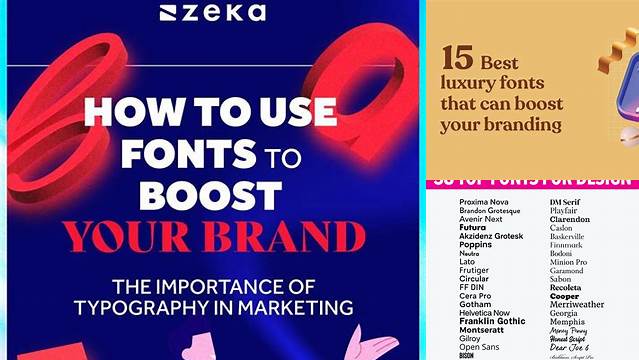
Top Fonts For Package Design: Boost Your Brand!
Choosing the right font for your package design is super important, guys. It’s not just about making it look pretty; it’s about grabbing attention, conveying your brand's vibe, and making sure people can actually read what’s on the label. Let's dive into the best fonts to make your product pop off the shelves!
1. Why Font Choice Matters in Package Design
Okay, so why sweat over fonts? Well, the font you pick is a key part of your brand's visual identity. Think about it: a playful, bubbly font screams something totally different than a sleek, modern sans-serif. Your font sets the tone before anyone even reads the words. It can convey trustworthiness, luxury, fun, or sophistication. Get it wrong, and you risk confusing or even alienating your target audience. Plus, a legible font is crucial. If people can't read what your product is or what it does, they're not going to buy it, no matter how cool the packaging looks. Considering all these aspects ensures that the package resonates effectively with potential buyers, reinforcing brand recognition and driving sales through clear communication. A well-thought-out font selection enhances the overall appeal of the product, making it more attractive and informative on the shelf, which ultimately contributes to a successful market presence and customer satisfaction.
2. Best Serif Fonts for Packaging
Serif fonts, with their little decorative strokes, often feel classic and reliable. For a touch of elegance, consider using a serif font. Think about brands that want to convey tradition, quality, or a sense of history. Times New Roman might be the default in Word, but there are way more interesting options out there! Garamond is a beautiful, timeless choice that works well for high-end products. Play around with different weights and sizes to find the perfect balance. Another great serif is Merriweather, which is super readable even at smaller sizes – perfect for those ingredient lists! Serifs enhance readability in print and evoke feelings of reliability and sophistication, making them ideal for products aiming to project a sense of heritage or premium quality. Using these fonts can significantly elevate the perceived value of the product, influencing consumer perception and purchase decisions through subtle yet powerful visual cues. The key is to select a serif that aligns with the brand's ethos and the product's positioning in the market, ensuring a cohesive and impactful design.
3. Top Sans-Serif Fonts for Modern Packaging
Sans-serif fonts are all about that clean, modern vibe. No frills, just straight lines and simplicity. If you're going for a contemporary look, sans-serif fonts are your best friend. Helvetica is the king of sans-serif, but it can feel a bit overused. Try alternatives like Open Sans, which is super versatile and readable, or Montserrat, which has a bit more personality. These fonts work well for tech products, minimalist designs, or anything that wants to feel fresh and up-to-date. The clarity and simplicity of sans-serif fonts make them ideal for conveying information quickly and efficiently, which is particularly useful for product details and instructions. By choosing a sans-serif that aligns with the product's branding, designers can create packaging that not only looks modern but also effectively communicates the product's core attributes to consumers. This approach helps in establishing a strong brand identity and fostering consumer trust and recognition.
4. Script and Handwritten Fonts in Package Design
Want to add a personal touch? Script or handwritten fonts can be amazing, but use them sparingly! These fonts are great for artisanal products, handmade goods, or anything that wants to feel a bit more human and approachable. Think about a fancy script on a bottle of organic olive oil or a playful handwritten font on a package of gourmet cookies. Just make sure they're still legible – no one wants to squint to figure out what they're buying. Brush Script is a classic (though slightly dated) choice, while newer options like Amatic SC offer a more modern feel. When used correctly, script and handwritten fonts can significantly enhance the emotional connection between the product and the consumer, creating a sense of authenticity and care. However, it's crucial to ensure that the chosen font complements the overall design and doesn't compromise readability. These fonts are best suited for accentuating specific elements of the packaging, such as the product name or a special message, rather than for extensive body text. Properly implemented, they can transform a simple package into a memorable and engaging experience.
5. Display Fonts for Eye-Catching Packaging
Display fonts are designed to grab attention, and they're perfect for making your packaging stand out. These fonts often have unique shapes and details that make them instantly noticeable. Use them for headlines, product names, or anything you want to emphasize. Just don't use them for body text – they're not designed for long blocks of reading. Examples include Bebas Neue, a tall and impactful sans-serif, or Lobster, a bold and retro script. When strategically placed, display fonts can act as powerful visual magnets, drawing consumers' eyes to the product and creating a lasting impression. The key is to select a font that not only stands out but also aligns with the brand's identity and the product's overall message. A well-chosen display font can communicate the product's personality, whether it's playful, sophisticated, or edgy, thereby enhancing its appeal and memorability on the shelf.
6. Font Pairing Tips for Package Design
Font pairing is an art, guys! You don't want your packaging to look like a font salad. A good rule of thumb is to pair a serif font with a sans-serif font. For example, use a Garamond header with an Open Sans body. Or, pair a bold display font with a simple, readable sans-serif. The goal is to create contrast and visual interest without overwhelming the viewer. Websites like FontPair can give you some great ideas. By combining fonts effectively, designers can create a hierarchy of information that guides the viewer's eye and enhances the overall readability and aesthetic appeal of the packaging. It's important to consider the mood and message of the product when selecting font pairings, ensuring that the chosen fonts work harmoniously to reinforce the brand's identity and attract the target audience. A well-executed font pairing not only improves the visual impact of the packaging but also contributes to a more engaging and memorable consumer experience.
7. Legibility: The Golden Rule of Package Fonts
No matter how cool a font looks, it's useless if people can't read it. Legibility should always be your top priority. Avoid overly decorative fonts for body text, and make sure there's enough contrast between the font color and the background. Test your font choices at different sizes to make sure they're still readable. If people have to squint or struggle to read your packaging, they're going to move on to the next product. To ensure optimal legibility, it's important to consider factors such as font size, spacing, and color contrast, especially when dealing with small text on packaging. Conducting readability tests with a diverse group of potential customers can provide valuable feedback on the effectiveness of the font choices. Ultimately, prioritizing legibility not only enhances the consumer experience but also reinforces the brand's commitment to clear and honest communication.
8. Considering Your Target Audience
Who are you trying to reach with your packaging? Think about your target audience when choosing a font. A font that appeals to kids is going to be very different from a font that appeals to sophisticated adults. Research your audience's preferences and choose fonts that resonate with them. If you are marketing toys for kids, bright colors and fun fonts is going to be more eye catching. Understanding your target audience's preferences and expectations is crucial for selecting fonts that resonate with them and effectively communicate the product's value proposition. By considering factors such as age, gender, cultural background, and lifestyle, designers can create packaging that not only attracts attention but also fosters a sense of connection and loyalty with consumers. A well-targeted font choice can significantly enhance the overall effectiveness of the packaging, increasing the likelihood of purchase and reinforcing the brand's identity.
9. The Psychology of Fonts in Branding
Fonts aren't just letters; they evoke emotions and associations. Understanding the psychology of fonts can help you choose the right font for your brand. Serif fonts often feel traditional and trustworthy, while sans-serif fonts feel modern and clean. Script fonts can feel elegant or playful, depending on the style. Think about the message you want to convey and choose a font that reinforces that message. The impact of font selection extends beyond aesthetics, playing a critical role in shaping brand perception and influencing consumer behavior. By carefully considering the psychological associations of different font styles, brands can strategically leverage typography to convey desired attributes, such as trustworthiness, innovation, or luxury. A well-chosen font can serve as a powerful tool for differentiating a brand from its competitors and creating a lasting impression in the minds of consumers.
10. Font Licensing and Usage Rights
Before you use a font in your packaging, make sure you have the proper license. Many fonts are free for personal use but require a commercial license for business purposes. Using a font without a license can lead to legal trouble, so it's always best to check the terms of use. Websites like MyFonts and Fontspring offer a wide variety of fonts with clear licensing information. Properly addressing font licensing and usage rights is crucial for ensuring compliance with copyright laws and avoiding potential legal issues. Designers and businesses should carefully review the terms of use associated with each font before incorporating it into their packaging design, paying attention to restrictions on commercial use, modification, and distribution. By adhering to font licensing agreements, brands can protect themselves from legal liabilities and maintain ethical standards in their creative endeavors.
11. Accessibility Considerations in Font Choice
Accessibility is important in package design. Choose fonts that are easy to read for people with visual impairments. Avoid using overly small fonts or fonts with low contrast. Consider using fonts that are specifically designed for accessibility, such as those with clear and distinct letterforms. Ensuring that packaging is accessible to individuals with disabilities not only promotes inclusivity but also expands the potential customer base. By prioritizing readability and legibility, brands can create packaging that is easily understandable and navigable for all consumers, regardless of their visual abilities. This commitment to accessibility demonstrates a dedication to social responsibility and can enhance the brand's reputation and customer loyalty.
12. Trends in Packaging Typography
Staying up-to-date with design trends can help your packaging feel fresh and modern. Currently, bold typography, geometric fonts, and hand-drawn fonts are all popular choices. However, it's important to balance trends with timelessness. You don't want your packaging to look dated in a year or two. While trends can provide inspiration, it's crucial to ensure that the chosen typography aligns with the brand's identity and resonates with the target audience. A well-balanced approach that combines contemporary design elements with classic principles can create packaging that is both visually appealing and enduring.
13. Using Color with Fonts on Packaging
Color plays a huge role in how fonts are perceived. High contrast between the font color and the background is essential for legibility. Consider how different colors evoke different emotions. For example, blue often feels calming and trustworthy, while red feels bold and energetic. Experiment with different color combinations to find what works best for your brand. The strategic use of color can amplify the impact of typography, creating a cohesive and visually compelling packaging design. By considering the psychological associations of different colors and their interactions with font styles, brands can craft packaging that effectively communicates their message and captures the attention of consumers.
14. Creating Visual Hierarchy with Fonts
Visual hierarchy guides the viewer's eye and tells them what's important. Use different font sizes, weights, and styles to create a clear hierarchy. The product name should be the most prominent element, followed by key information like benefits and ingredients. A well-defined visual hierarchy ensures that consumers can quickly and easily understand the product's key features and benefits, enhancing their overall shopping experience. By strategically employing typography, brands can create packaging that is both informative and visually engaging, guiding consumers through the decision-making process.
15. Font Size Considerations for Small Packaging
When dealing with small packaging, font size becomes even more critical. Choose fonts that are readable at small sizes, and avoid using overly decorative fonts. Prioritize essential information and keep text concise. Test your font choices on actual packaging to make sure they're still legible. Optimizing font size for small packaging requires careful consideration of factors such as legibility, readability, and visual hierarchy. By selecting fonts that are specifically designed for small sizes and employing techniques such as kerning and tracking to improve spacing, designers can create packaging that is both informative and visually appealing, even in limited space.
16. Custom Fonts for Unique Branding
If you really want to stand out, consider creating a custom font for your brand. This allows you to create a unique visual identity that no one else can copy. Custom fonts can be expensive, but they can be a worthwhile investment for brands that want to establish a strong and memorable presence. Investing in a custom font can provide brands with a significant competitive advantage, allowing them to differentiate themselves from competitors and create a lasting impression on consumers. Custom fonts can be tailored to reflect the brand's personality, values, and target audience, ensuring that the packaging design is both unique and aligned with the overall brand strategy.
17. Software and Tools for Font Selection
There are tons of great software and tools to help you choose fonts. Adobe Fonts offers a huge library of fonts with easy licensing. FontPair helps you find great font combinations. Typekit provides high-quality fonts for web and print. These resources can streamline the font selection process and ensure that you're using fonts that are both visually appealing and legally compliant. By leveraging these tools, designers can explore a wide range of options and experiment with different combinations to find the perfect fonts for their packaging designs.
18. Testing Font Choices with Mockups
Always test your font choices on mockups before finalizing your design. This allows you to see how the fonts look on the actual packaging and make any necessary adjustments. Print out mockups and view them in different lighting conditions to ensure that the fonts are legible and visually appealing. Mockups provide a valuable opportunity to evaluate the overall effectiveness of the packaging design and identify any potential issues before mass production. By testing different font choices on mockups, designers can make informed decisions that optimize the visual impact and readability of the packaging.
19. Legal Considerations for Font Usage
Be aware of the legal considerations for using fonts in your packaging. Always check the font license to ensure that you have the right to use it for commercial purposes. Avoid using fonts that are similar to existing fonts, as this could lead to copyright infringement. Consult with a legal professional if you have any questions about font usage. Adhering to legal considerations is essential for protecting intellectual property rights and avoiding potential legal disputes. By carefully reviewing font licenses and seeking legal advice when necessary, designers can ensure that their packaging designs are both creative and legally compliant.
20. The Future of Typography in Packaging
The future of typography in packaging is exciting. We're seeing more innovative uses of fonts, such as kinetic typography and variable fonts. These technologies allow for dynamic and interactive typography that can enhance the consumer experience. Keep an eye on these trends and experiment with new ways to use fonts in your packaging. The evolution of typography is constantly pushing the boundaries of design and creating new opportunities for brands to connect with consumers. By embracing these advancements, designers can create packaging that is not only visually stunning but also highly engaging and interactive.
21. Typography for Sustainable Packaging
As sustainability becomes increasingly important, typography plays a role in conveying eco-friendly messages. Choose fonts that are made from sustainable materials, such as recycled paper. Use fonts that are easy to read, as this can reduce the need for excessive printing. Consider using fonts that promote recycling and reuse. The use of typography in sustainable packaging can reinforce the brand's commitment to environmental responsibility and resonate with eco-conscious consumers. By carefully selecting fonts and design elements, brands can create packaging that is both visually appealing and environmentally friendly.
22. Fonts That Reflect Product Origin
Selecting fonts that reflect the product's origin can add authenticity to your packaging. For example, if you're selling Italian olive oil, consider using a font that evokes Italian design. Research the typography traditions of different regions and choose fonts that are appropriate for your product. The incorporation of culturally relevant typography can enhance the brand's storytelling and create a stronger connection with consumers. By paying attention to these details, designers can create packaging that is both visually appealing and culturally sensitive.
23. Typography and Product Information Clarity
Clarity of product information is paramount. Your font choices should ensure that details like ingredients, usage instructions, and nutritional information are easily legible. Prioritize fonts known for their readability in small sizes. Effective typography facilitates consumer understanding, promoting informed purchasing decisions and enhancing user satisfaction. By focusing on clarity, brands demonstrate transparency and respect for their customers.
24. Fonts and Shelf Impact
The right font contributes significantly to shelf impact. Aim for fonts that stand out from the competition while maintaining brand consistency. Bold fonts and unique designs can capture attention, but ensure they don't compromise legibility. Typography that resonates with your target demographic can drive sales and build brand recognition. Strategic font selection is an investment in your product's visibility and market success.
25. Adapting Fonts for Different Packaging Materials
Different packaging materials interact differently with fonts. Consider how your chosen font appears on glass, cardboard, or plastic. Some fonts may lose clarity or become distorted on certain surfaces. Testing is crucial to ensure that the font remains legible and attractive, regardless of the material. Matching the font to the material enhances the overall design and ensures a consistent brand message.
26. Multilingual Typography Considerations
If your product is sold in multiple regions, multilingual typography is essential. Ensure that your font supports the necessary character sets and maintains legibility in all languages. Some fonts may require adjustments to spacing and kerning to accommodate different scripts. Respecting linguistic nuances enhances user experience and expands your product's reach.
27. Fonts and Regulatory Compliance
Fonts must comply with regulatory requirements. Ensure that mandatory information, such as warnings or disclaimers, is presented in a font size and style that meets legal standards. Overlooking this aspect can lead to fines or product recalls. Compliance-focused typography protects your brand and ensures consumer safety.
28. Typography for E-commerce Packaging
E-commerce packaging requires fonts that are easily scannable and recognizable. With products often viewed online first, ensure your typography translates well on digital platforms. Clear, bold fonts help convey key information quickly. Optimized typography enhances the online shopping experience and encourages conversions.
29. Personalization Trends in Typography
Personalized packaging is a growing trend. Use fonts that allow for customization, such as variable fonts. These fonts can adapt to individual consumer preferences, creating a unique and engaging experience. Personalized typography fosters brand loyalty and enhances customer satisfaction.
30. Collaborating with Typographers and Designers
Collaborating with professional typographers and designers ensures the best results. Their expertise can guide you in selecting and implementing fonts that align with your brand and product goals. Professional guidance ensures that your typography is both visually appealing and strategically effective. Investing in expert collaboration is an investment in your brand's success.